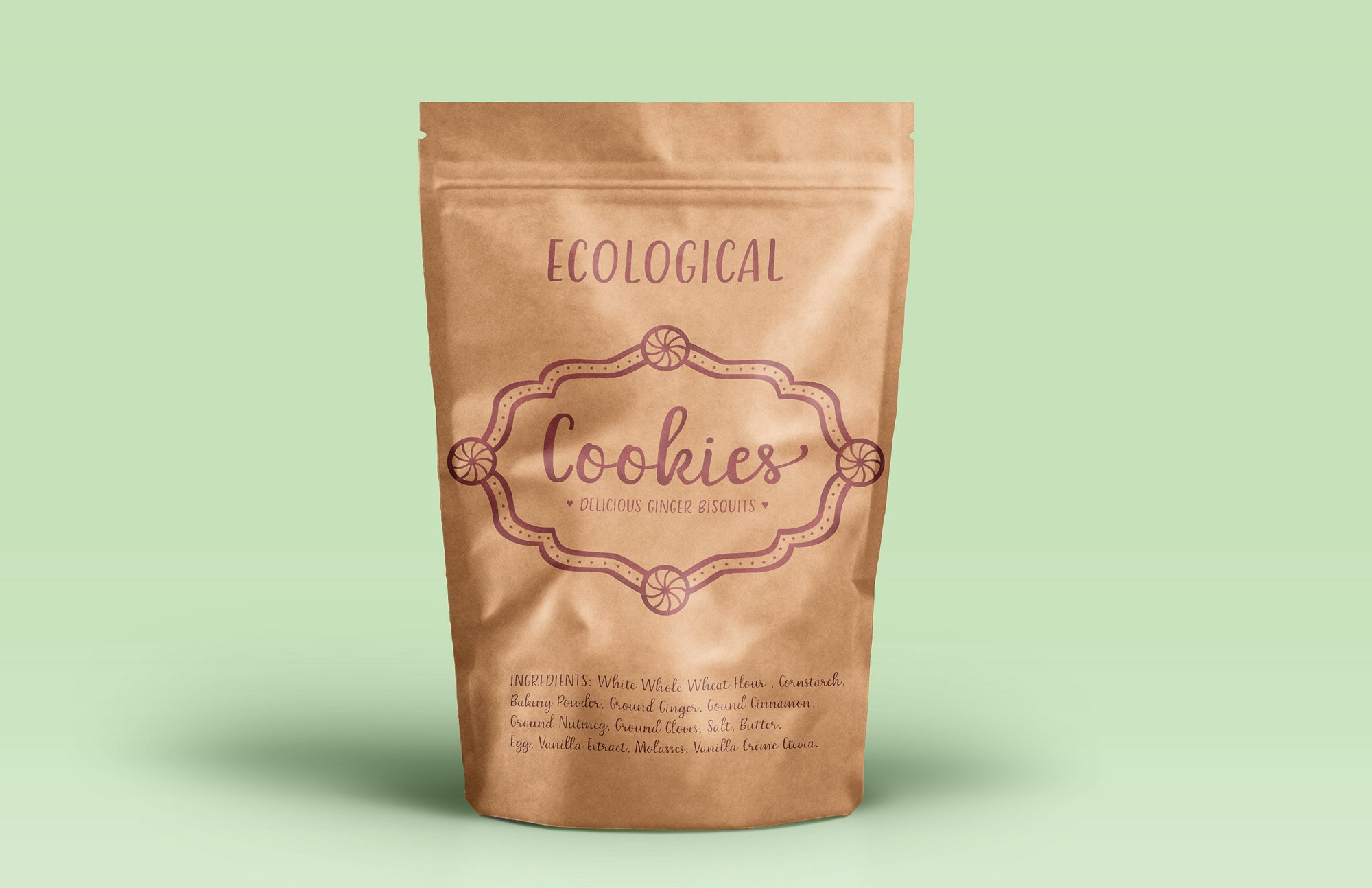
Belle Helene Script Font
Belle Helene is a calligraphic script and symbols font based on handwritten brush letters. This is a DEMO version of the font containing a limited number of glyphs: A–Z and a–z + ,.!?